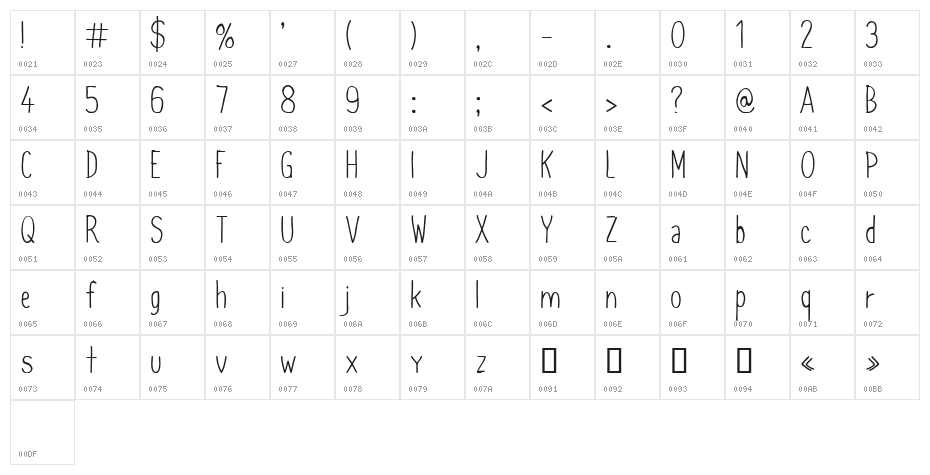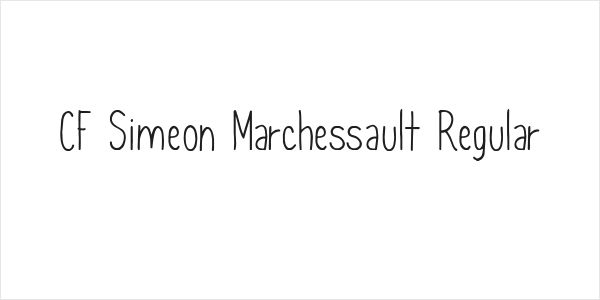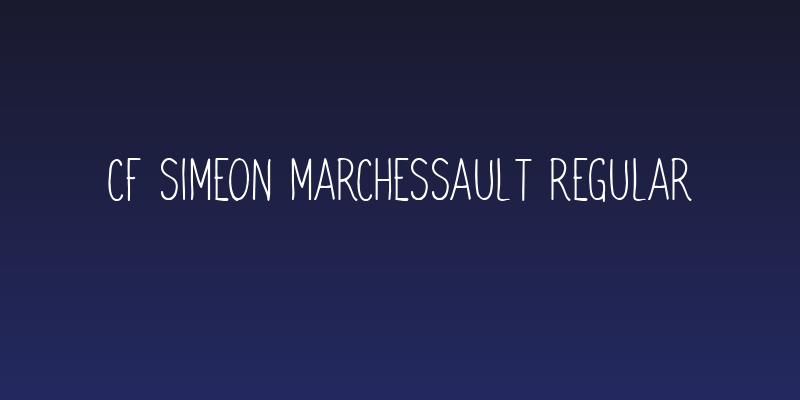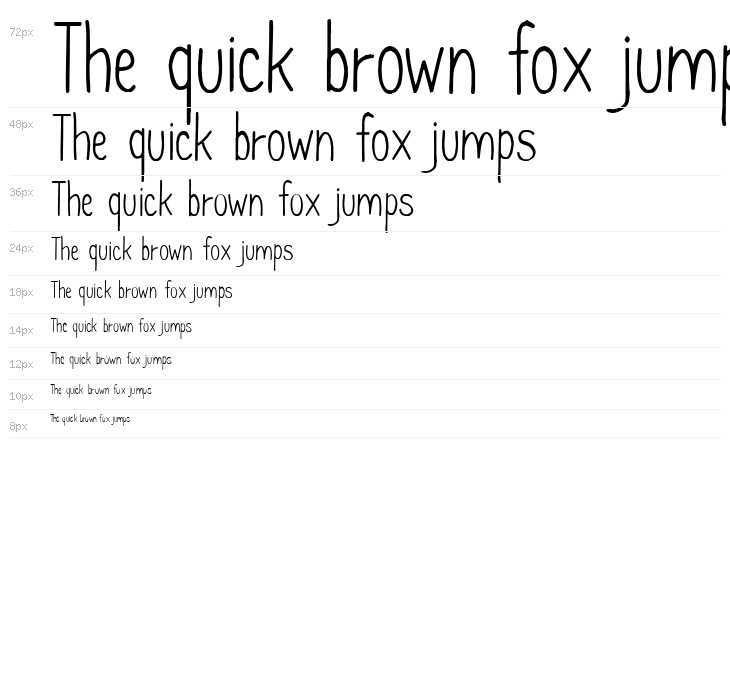
CF Simeon Marchessault Regular Font
CF Simeon Marchessault Regular Description
This font features a playful and handwritten style with a casual and approachable appearance. The characters are slightly elongated with a consistent stroke width, giving it a clean and modern look. The uppercase and lowercase letters maintain a uniform height, enhancing readability. The numerals are clear and distinct, while the special characters add a touch of whimsy. This font's design is versatile, making it suitable for a variety of creative projects.
| Use Case | Headlines, Logos, Casual text |
| Proposed Projects | Ideal for children's books, greeting cards, casual branding, and social media graphics. |